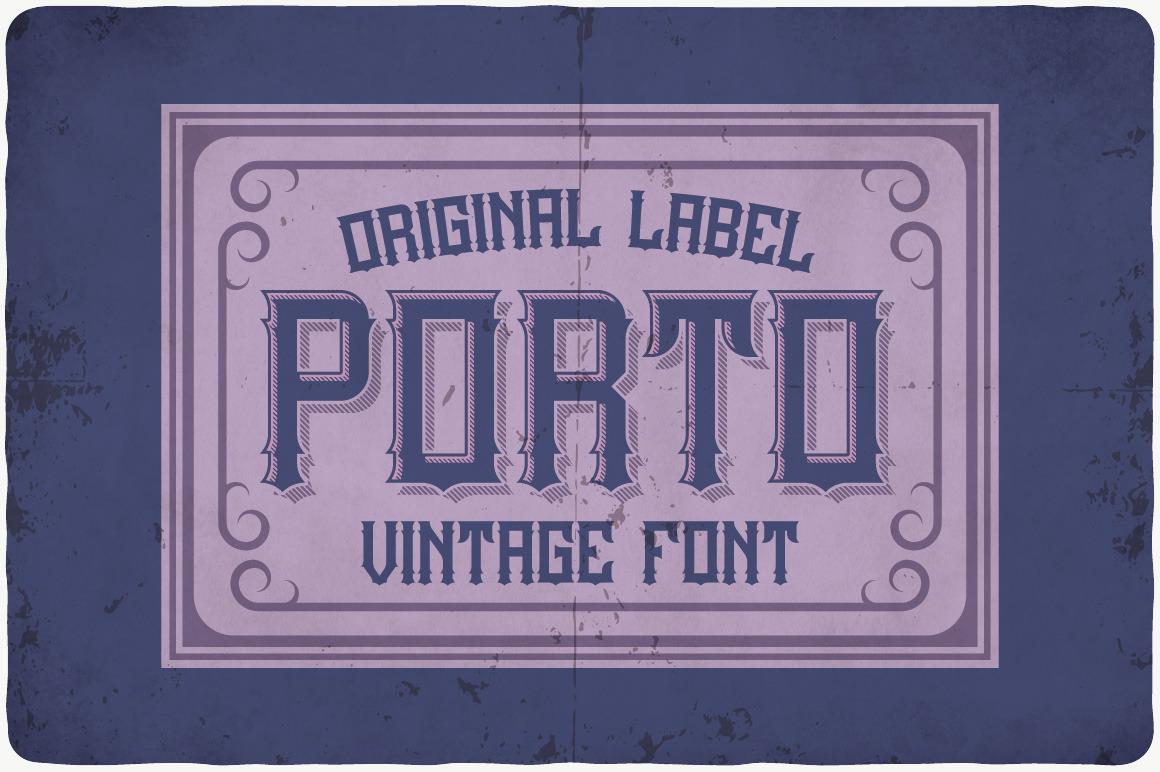
Porto typeface
Introducing a vintage look label typeface named "Porto". This typeface includes four styles, for sample look at 5th preview. Typeface will good viewed on any yours design.